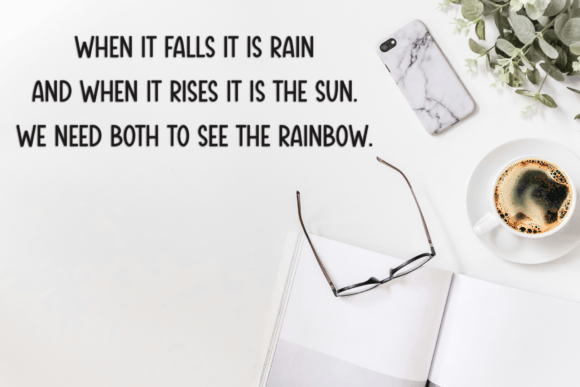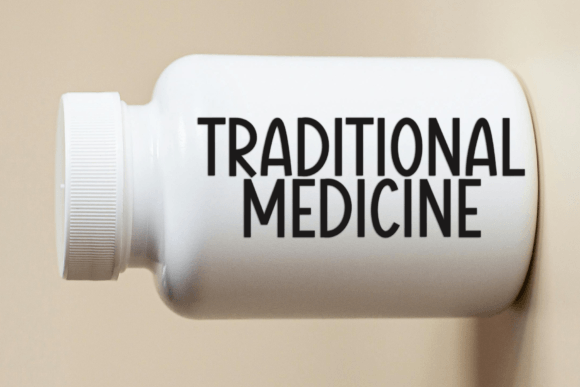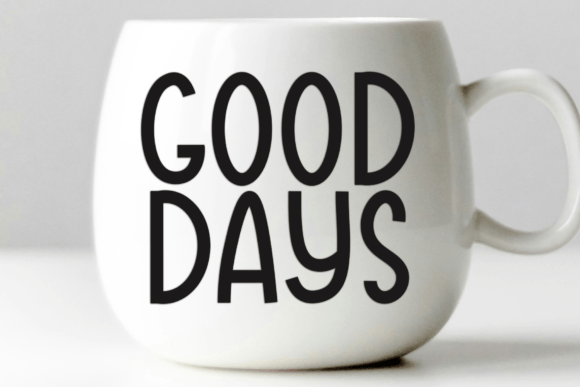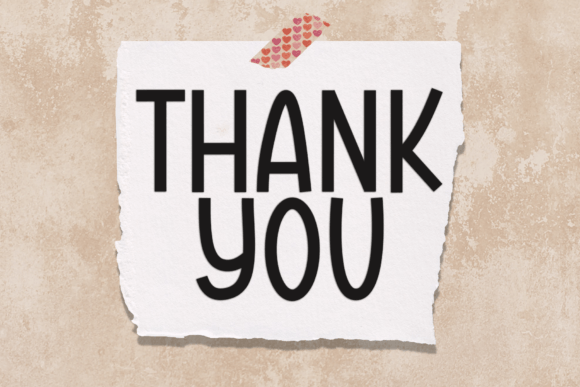
Introduction to Options Font
Options is a festive and happy typeface that captures the spirit of the holiday season.
With its decorative elements and unique flair, it adds a touch of charm to your designs Perfect for greeting cards, gift labels, and holiday-themed projects, this font brings a cheerful and nostalgic atmosphere to your words.
Options Font offers exceptional quality and versatility, making it a valuable addition to your design toolkit. Whether you’re creating for personal projects or commercial use, Options Font delivers professional results.